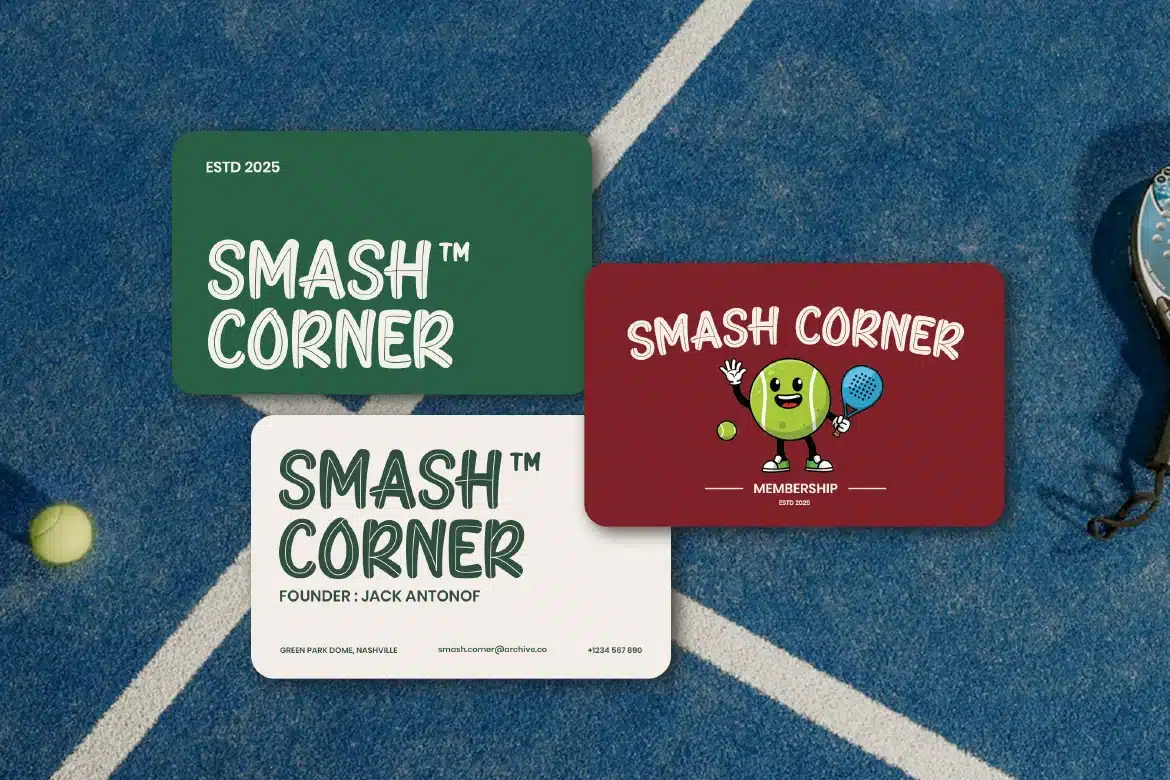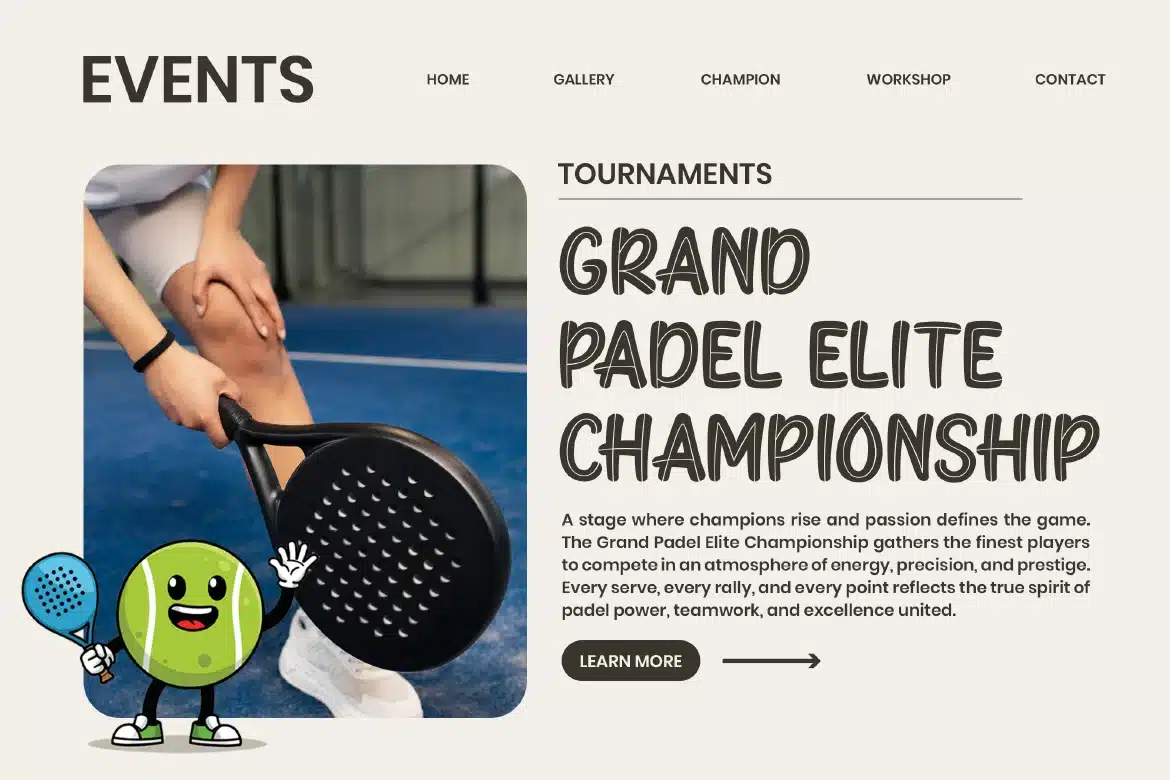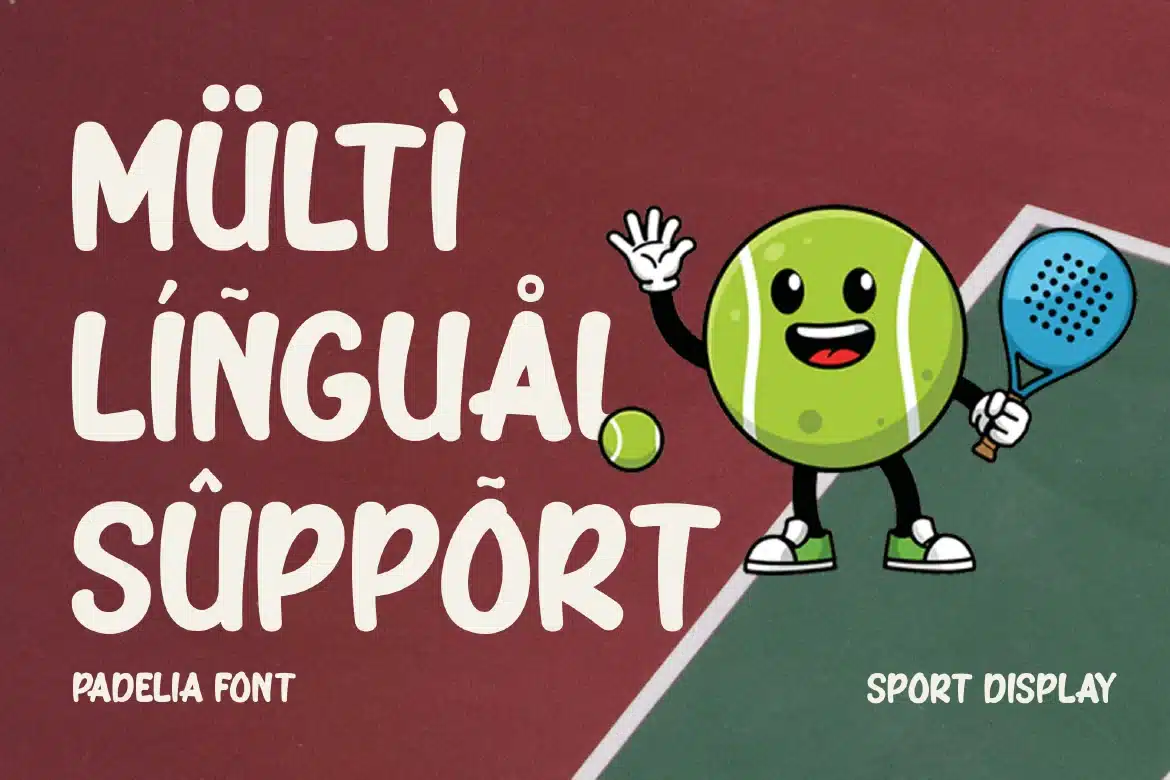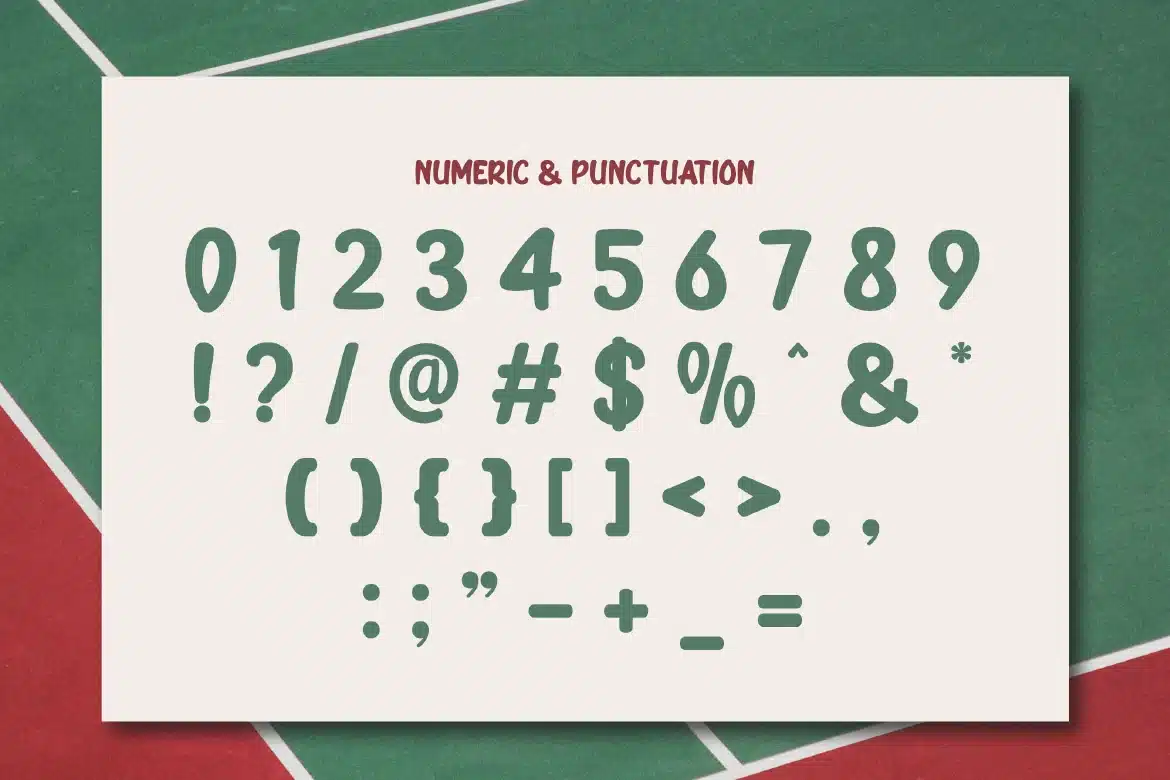
Sport Font Padelia
Padelia is a fun, energetic, and sporty display font designed especially for padel-themed projects. With its bold curves and friendly personality, Padelia brings movement and excitement to every design. Whether you're creating tournament posters, team branding, sport merchandise, or playful layouts, this font delivers a fresh and dynamic look that instantly grabs attention.
- Uppercase alphabet A-Z
- Lowercase alphabet a-z
- Numbers 0-9
- Some punctuation
- Some Alternates and Ligatures